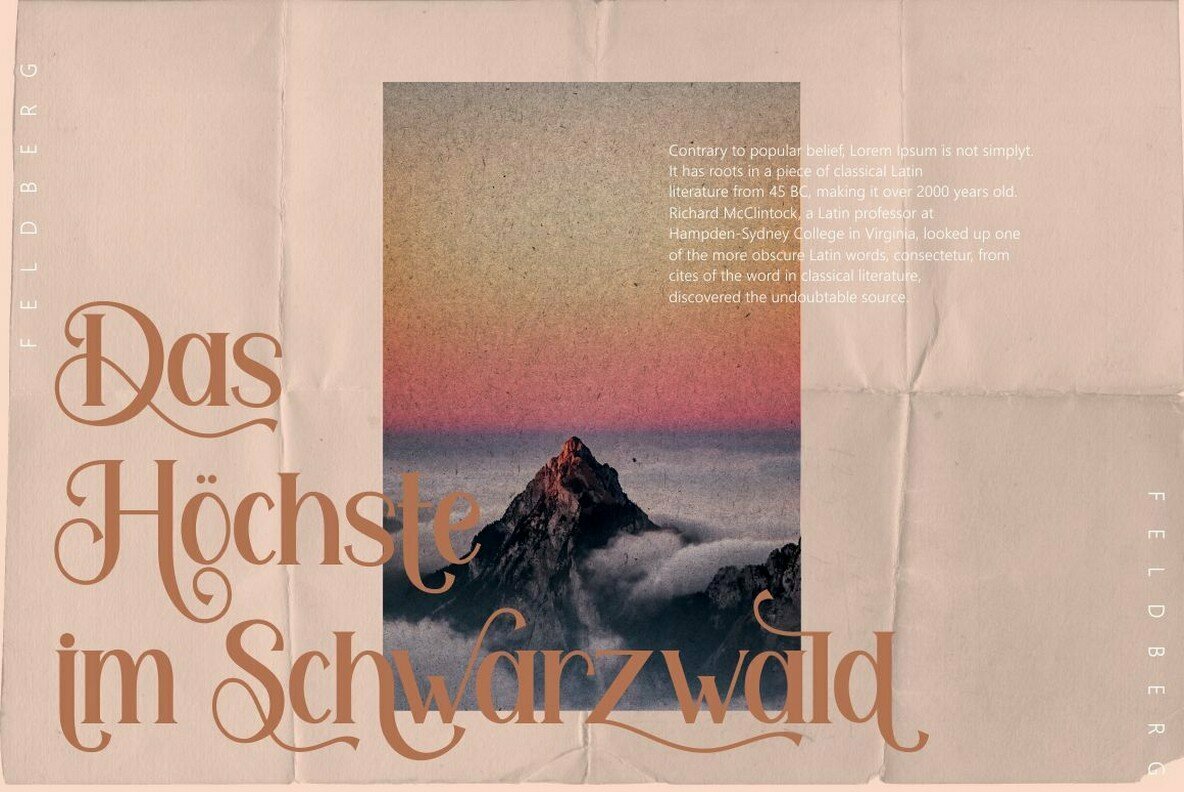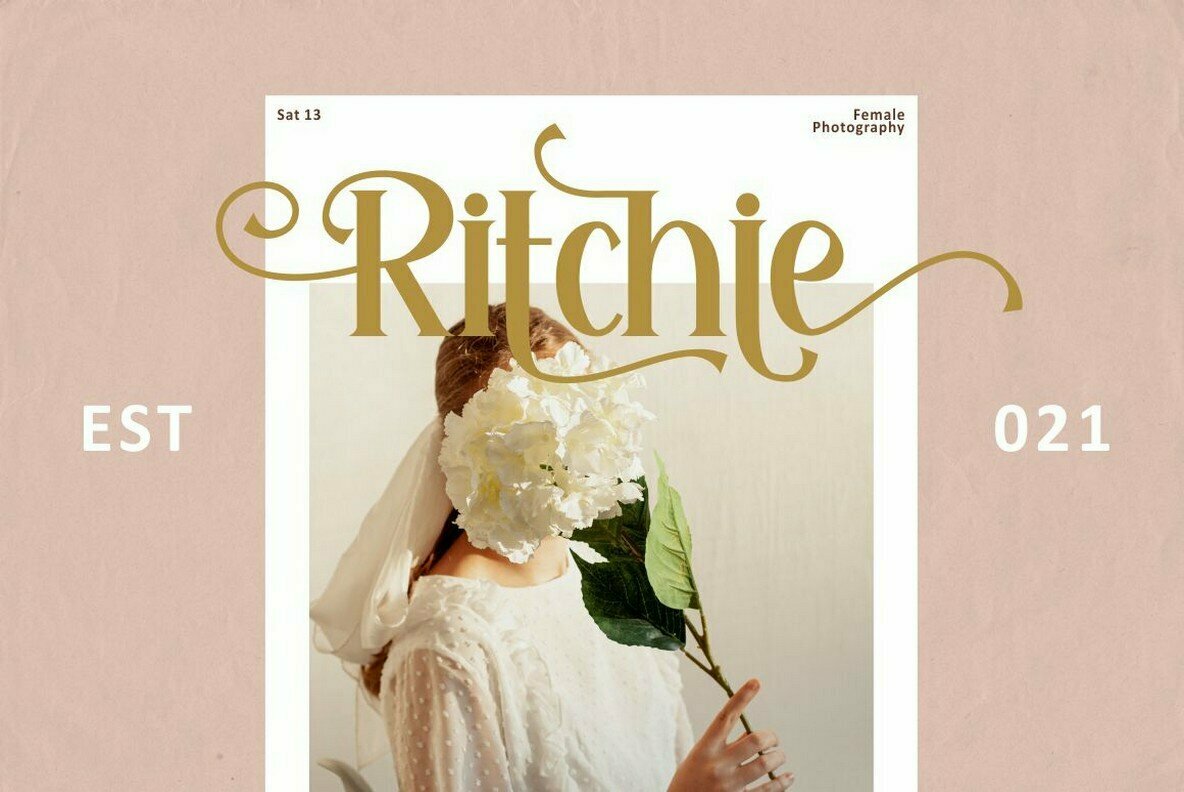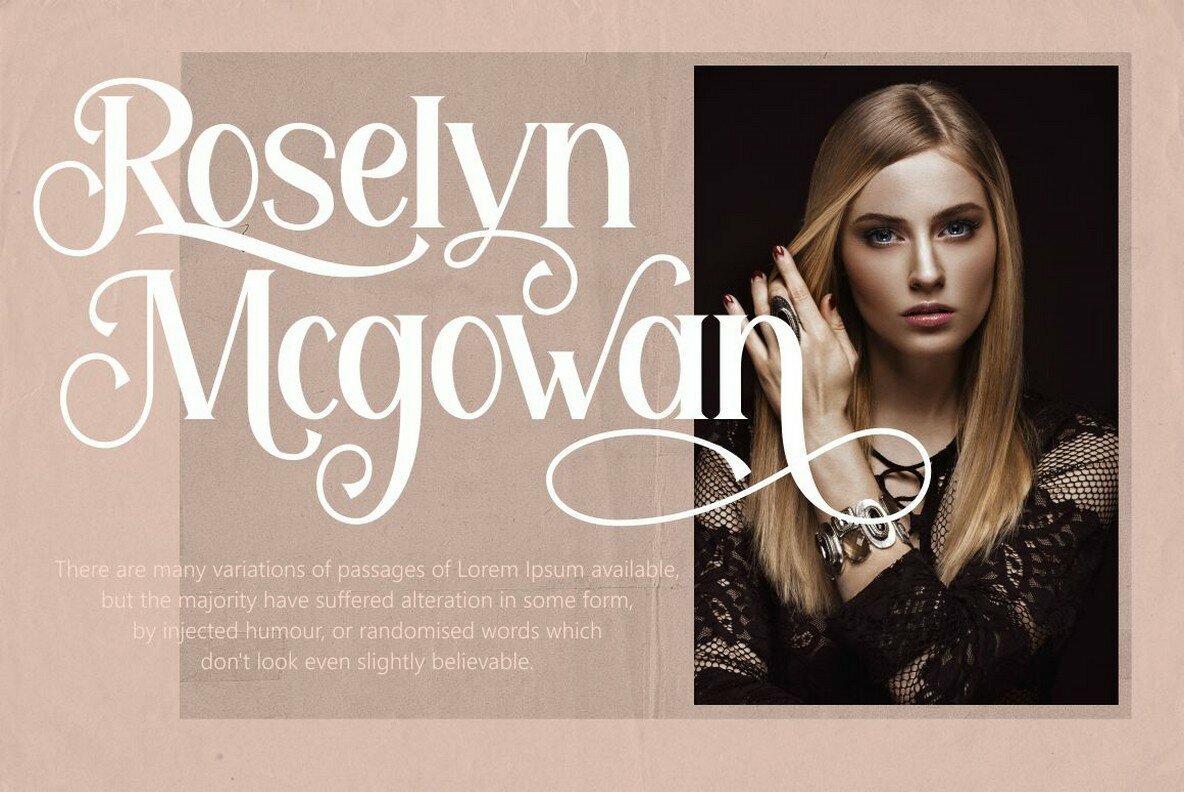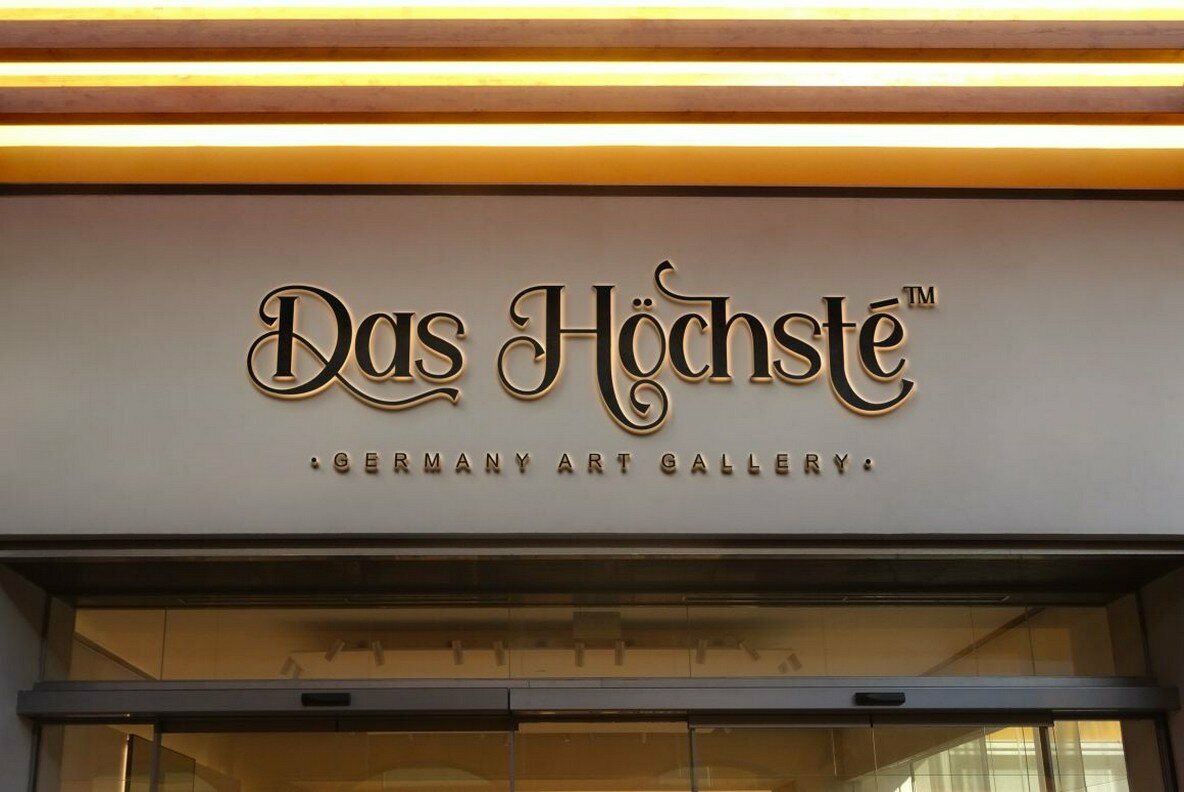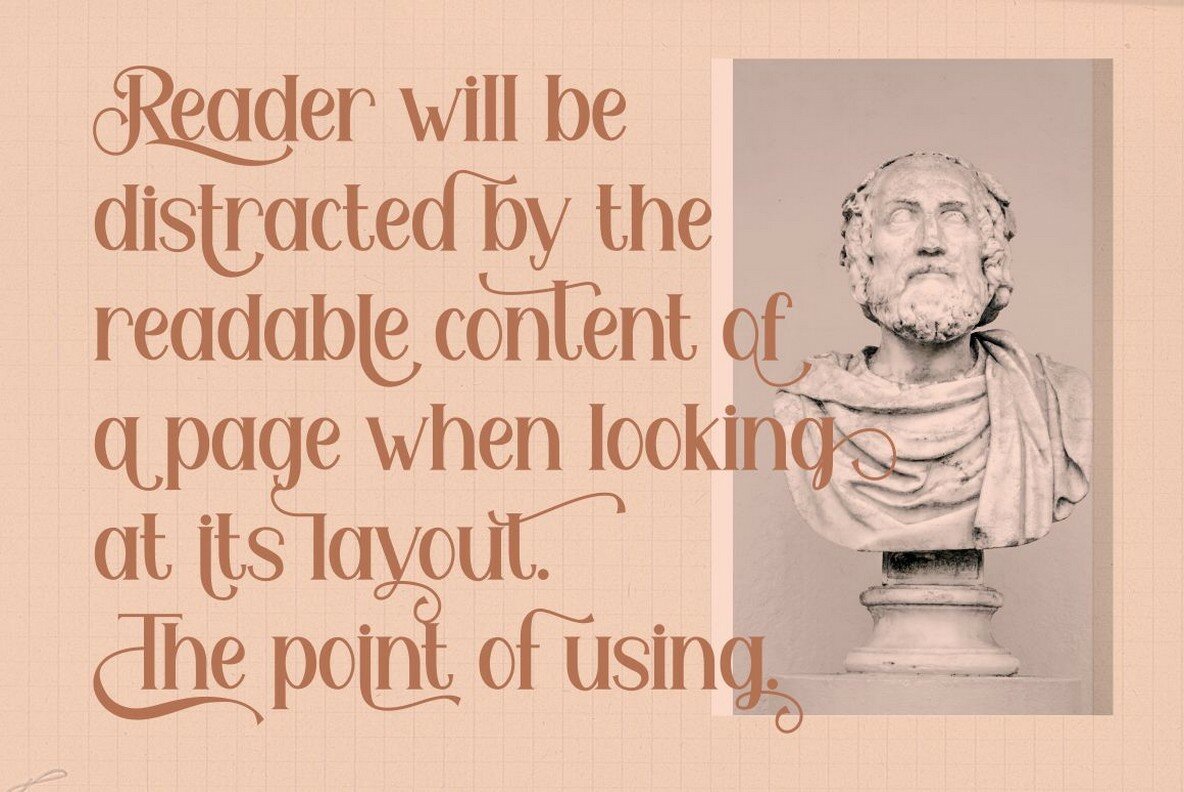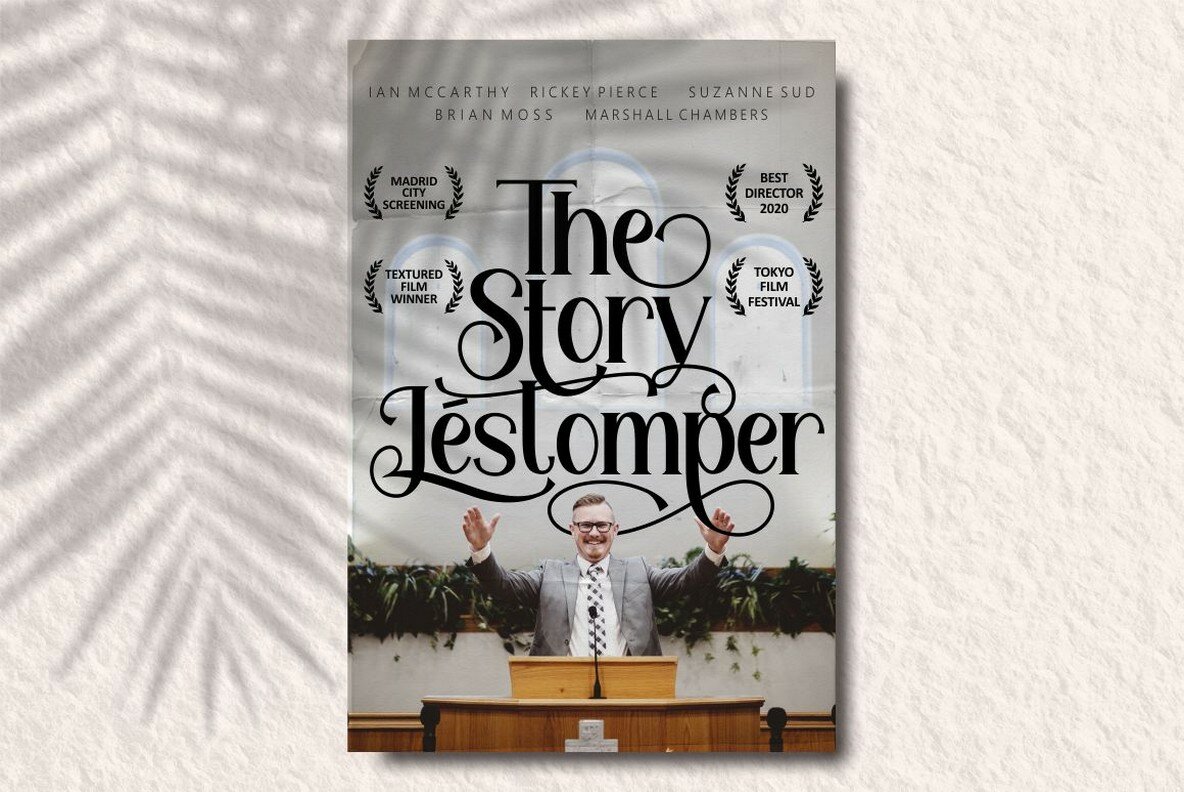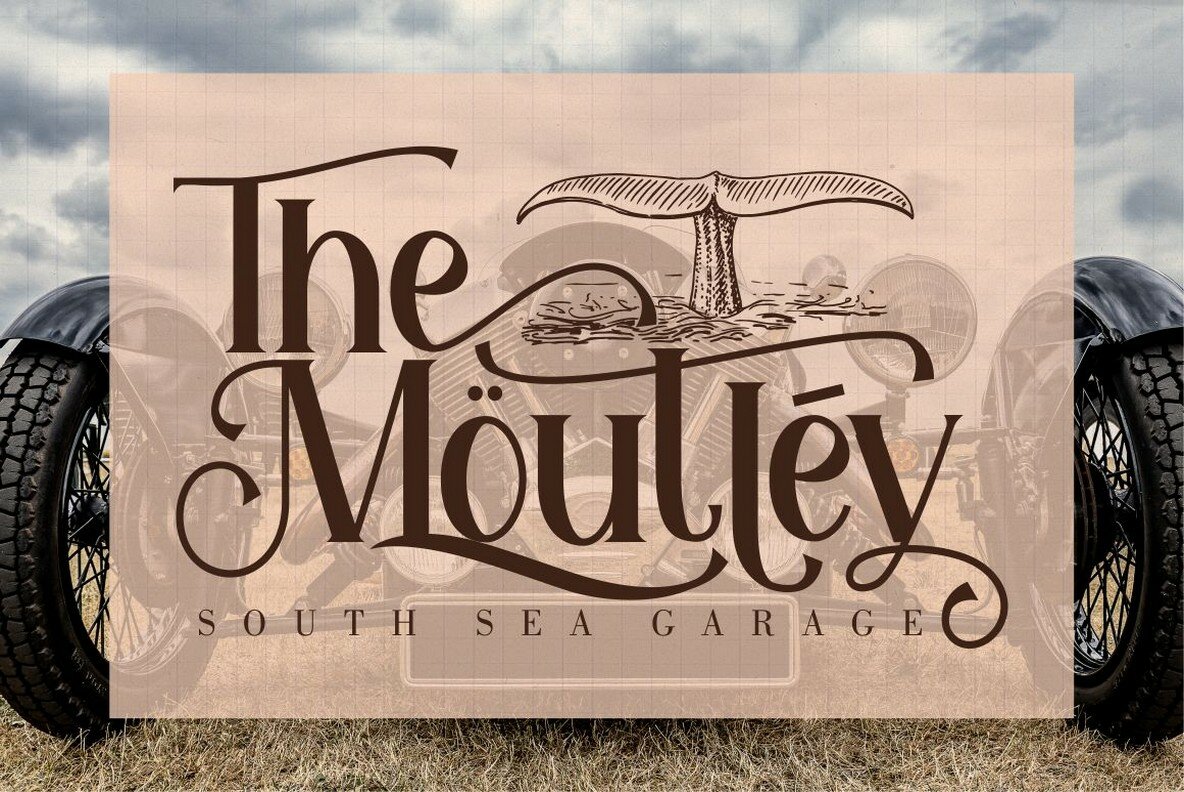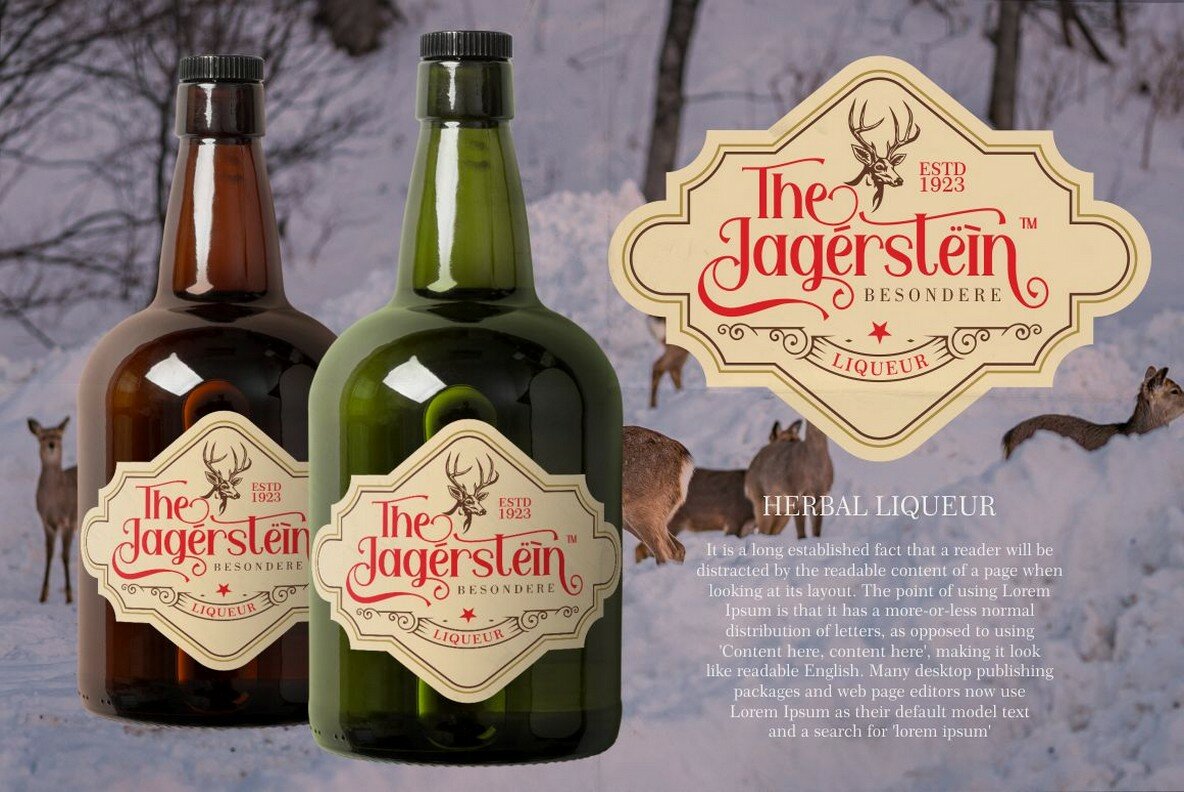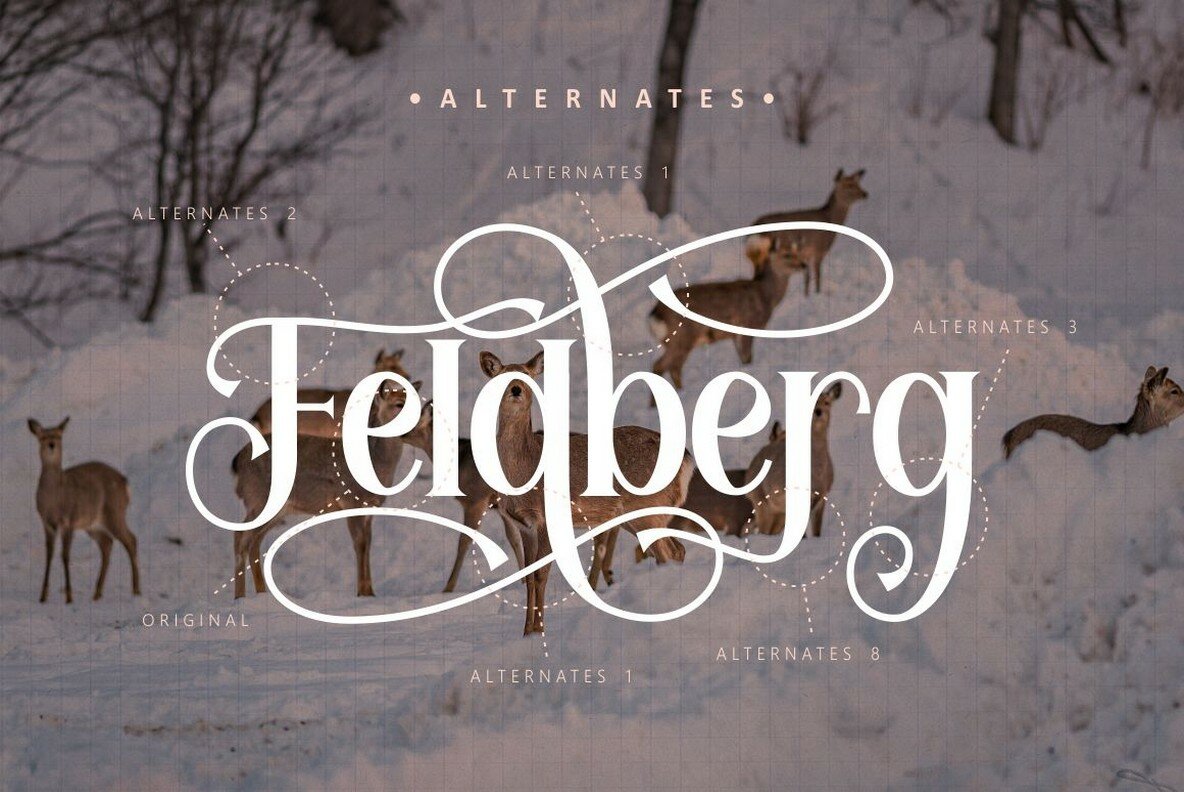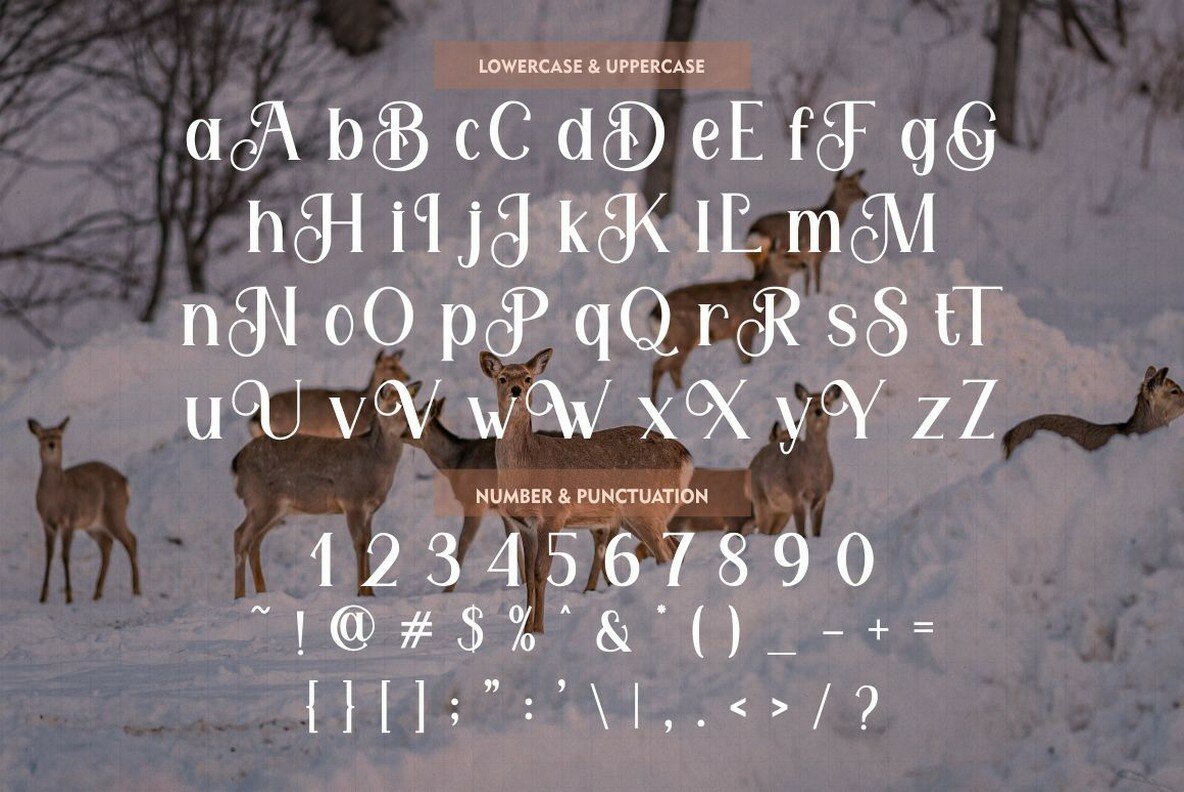
Feldberg Font
Feldberg
Feldberg stands out as a sophisticated serif font, offering luxury and style with its elegant design. Each glyph is carefully crafted to enhance your project’s aesthetic, complemented by numerous alternative options and robust multilingual support. Ideal for designers seeking a font that enriches branding materials and creative projects, Feldberg is equipped with open type features that provide a wide array of alternates. This flexibility assists in composing dynamic layouts and impressive lettering, ensuring that your work resonates with a touch of opulence. Use Feldberg for headlines, posters, logos, product packaging, and more, to impart a refined elegance that captures attention.Feldberg: Elegance in Every Glyph